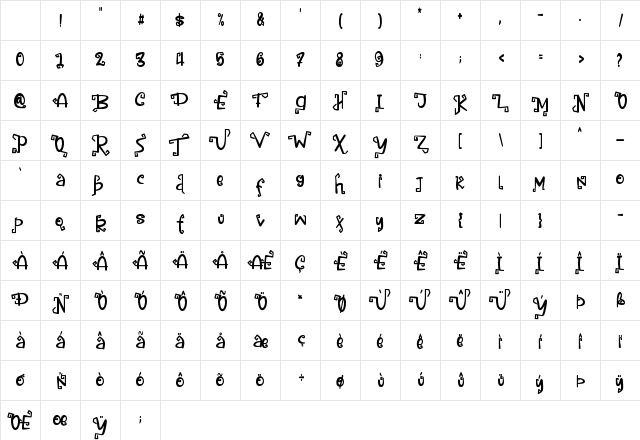
Creepy Witch-Personal Use carries an unsettling edge - its distorted letterforms are built to unsettle, perfectly suited to horror, Halloween, and dark creative work.
Font Pairing: Pair with a clean neutral sans-serif for body copy to let Creepy Witch-Personal Use's character lead without overwhelming the composition.
Pro Tip: Use Creepy Witch-Personal Use at larger display sizes for maximum impact. Consider generous tracking to let the disturbing character of each letterform breathe.